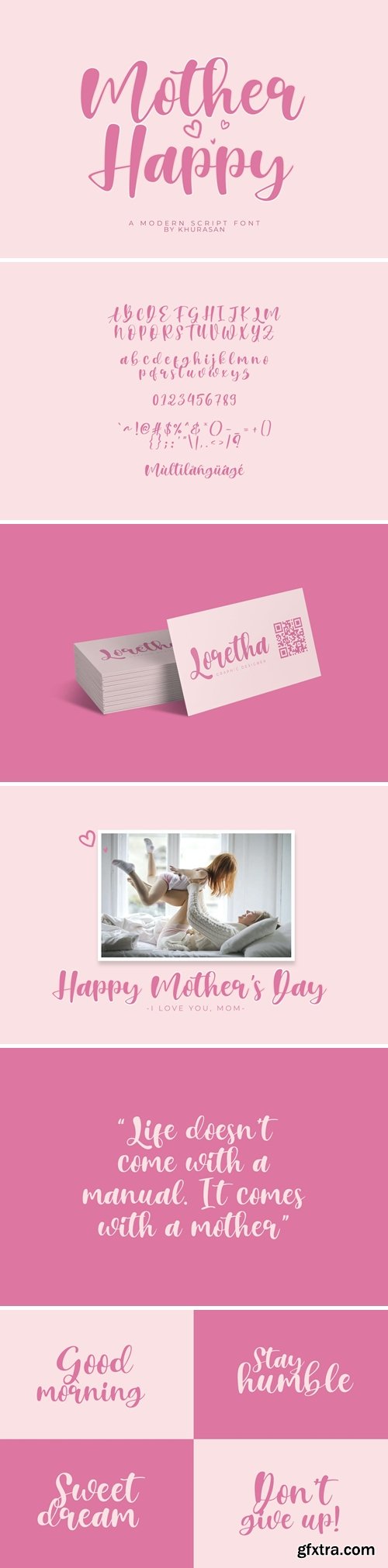
Mother Happy Font
Introducing, Mother Happy font a bold script typeface with cheerful theme for your best design project. Mother Happy font suitable for logo, branding, greeting card, poster and any design that you create.